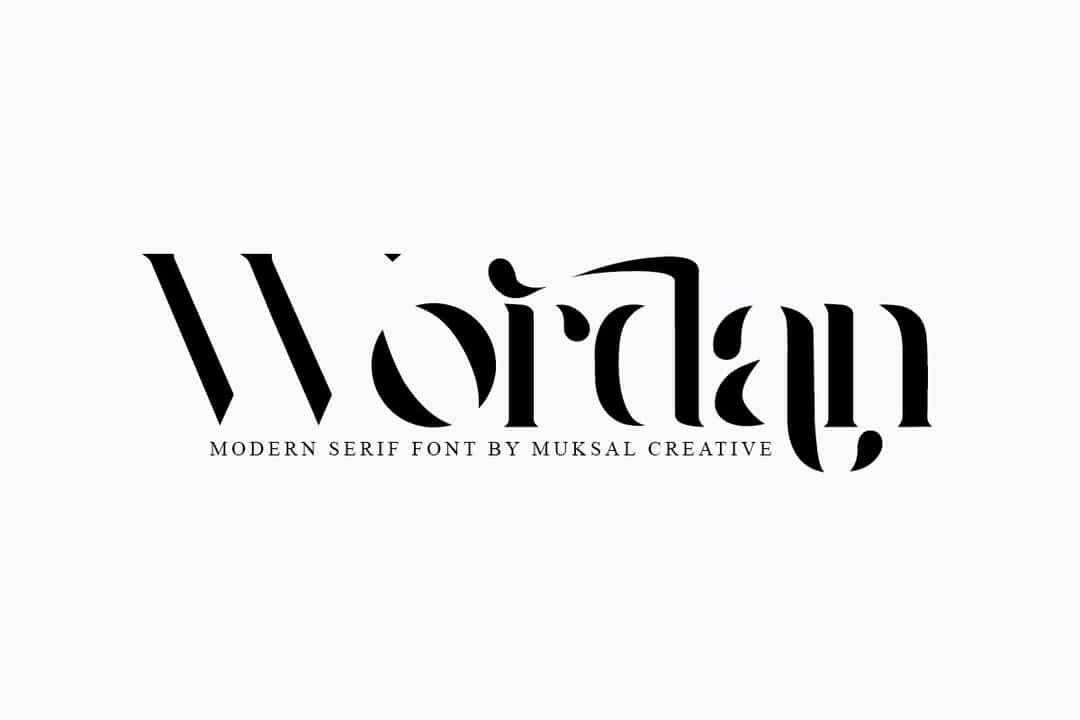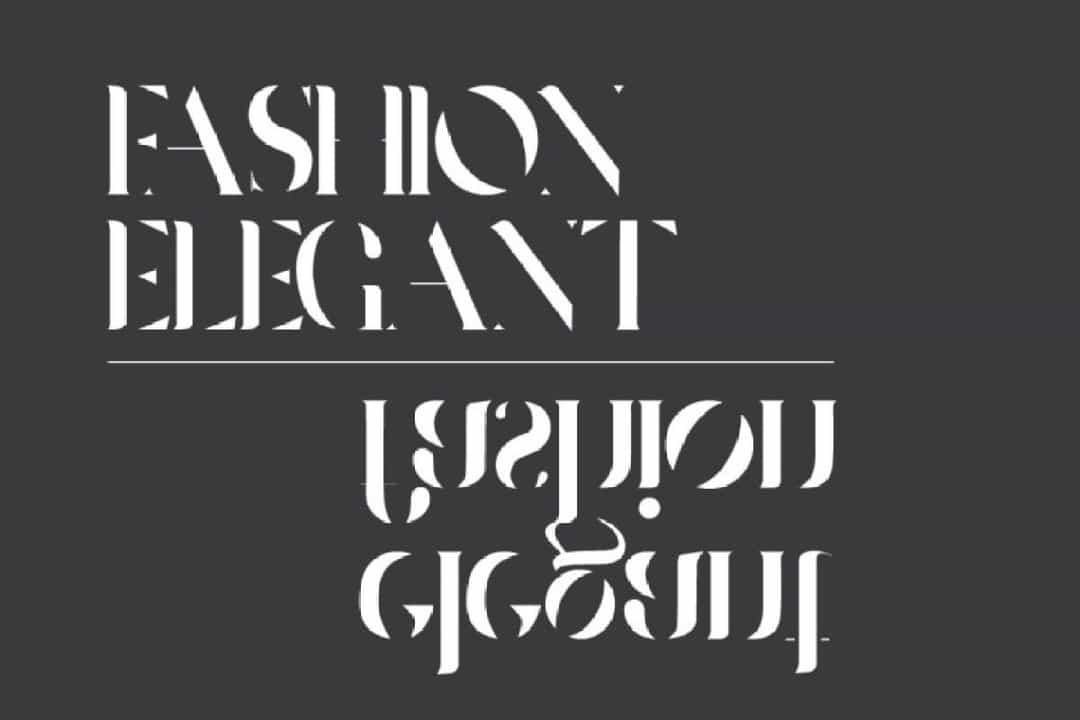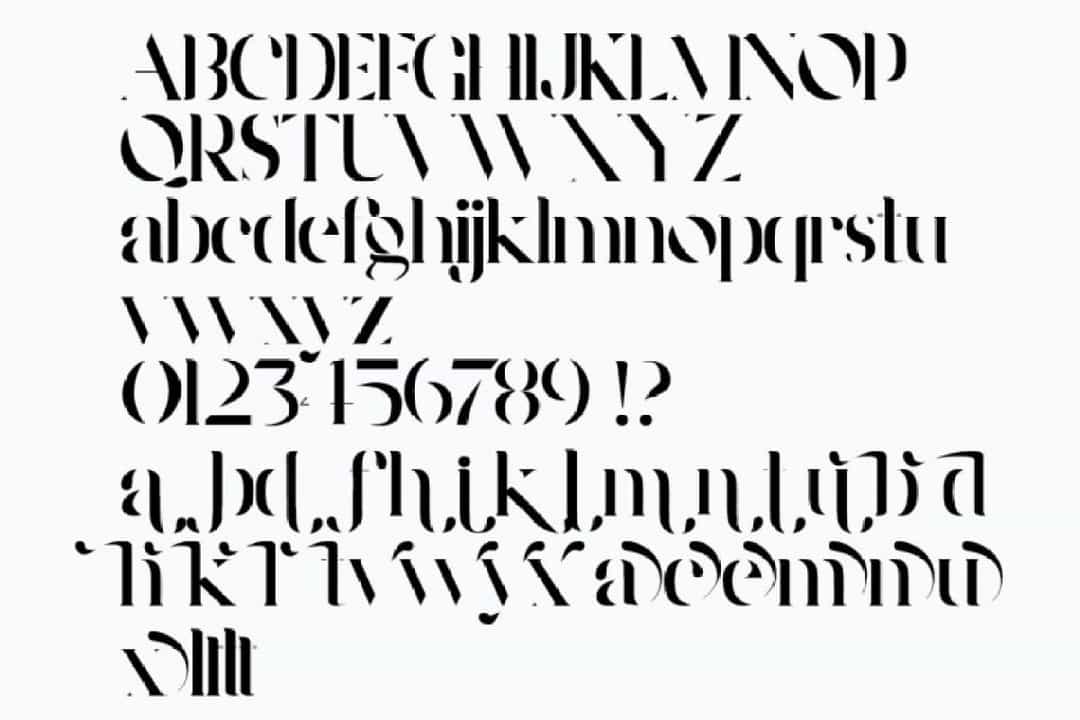
Wordan is that classy and trendy serif font that is perfect for a range of designs. An ode to the shapes that are void of any realistic depiction and that sparkles with beauty. This font is suitable for modern typography yet maintains the traditional look and feel.